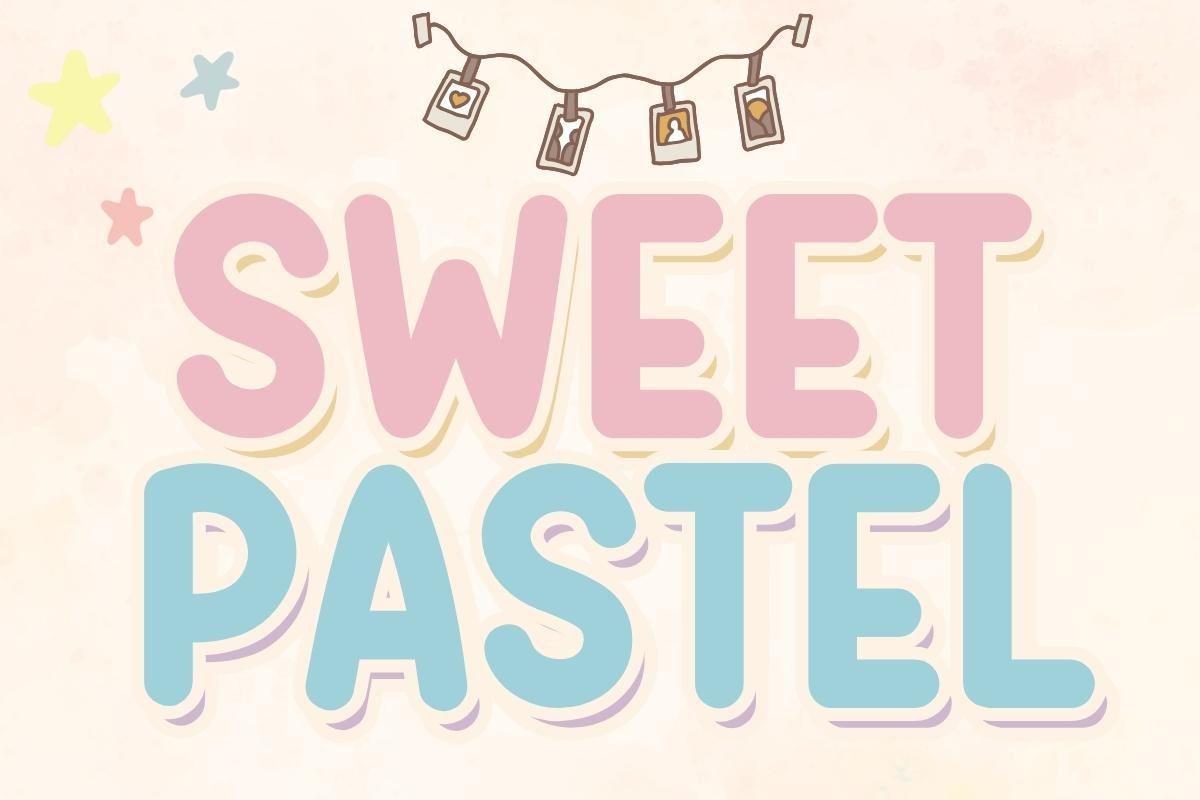
Sweet Pastel - Handwritting Free Download
Sweet Pastel - Handwriting Font Free Download is a soft, playful, and heartwarming typeface that brings a dose of charm to any creative project. With its gentle curves and natural handwritten feel, this font is perfect for greeting cards, kids’ designs, planners, social media posts, and branding that needs a personal, friendly vibe. Sweet Pastel captures the essence of casual elegance in every letter.
What makes Sweet Pastel - Handwriting Font Free Download so lovable is its simplicity and warmth. It’s easy to read yet full of personality, making it ideal for anything from quotes and product packaging to blog headers and digital scrapbooking. The font flows smoothly, with just the right touch of whimsy to keep things light and inviting.